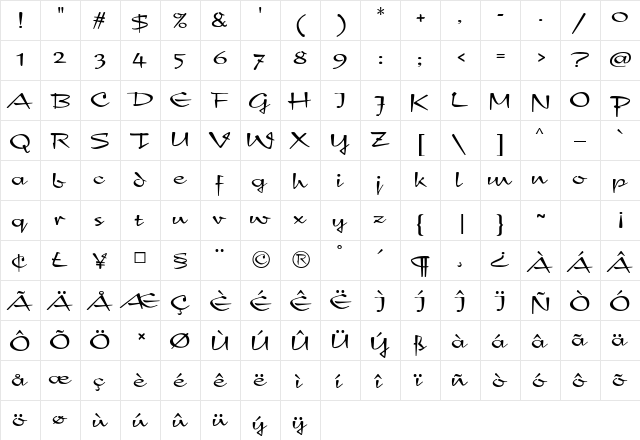
NewDay Script
| Style | Script |
Design Context for NewDay Typeface
NewDay brings a calligraphic fluidity to the page — its connecting strokes and expressive curves give it an unmistakably human quality.